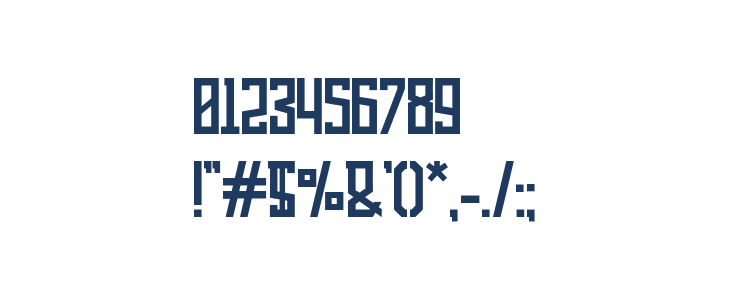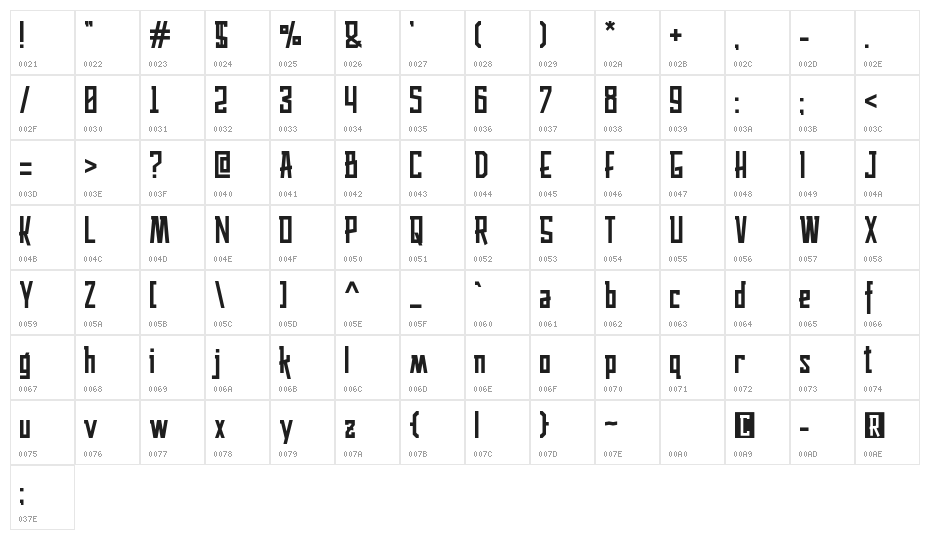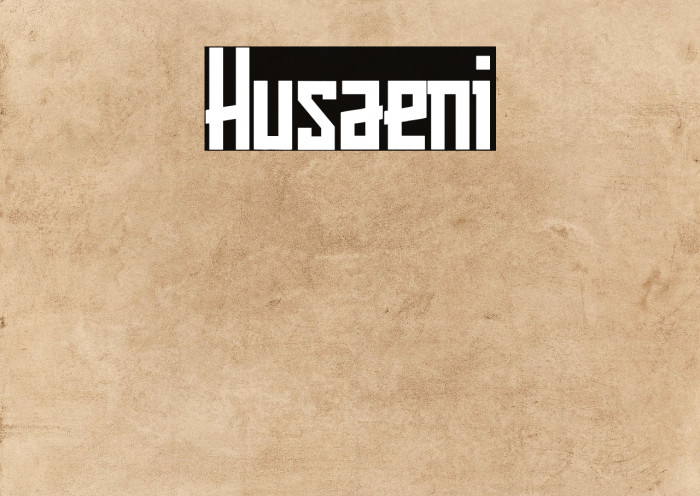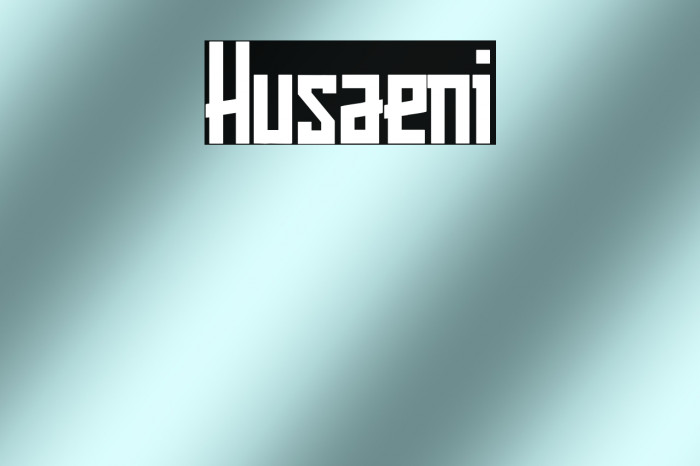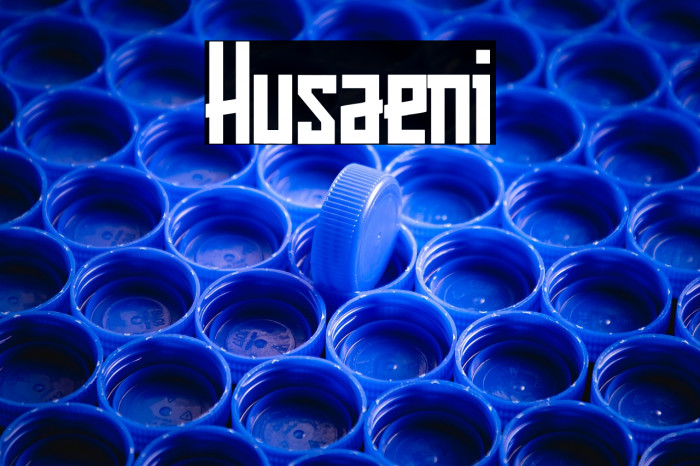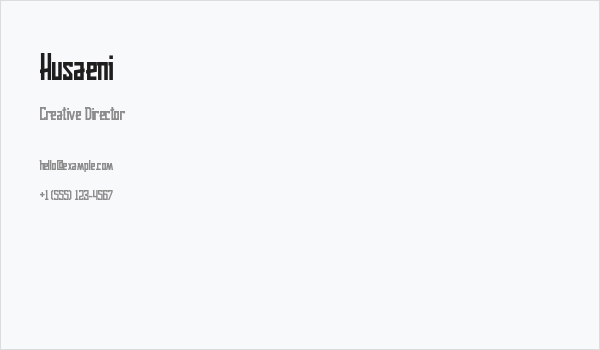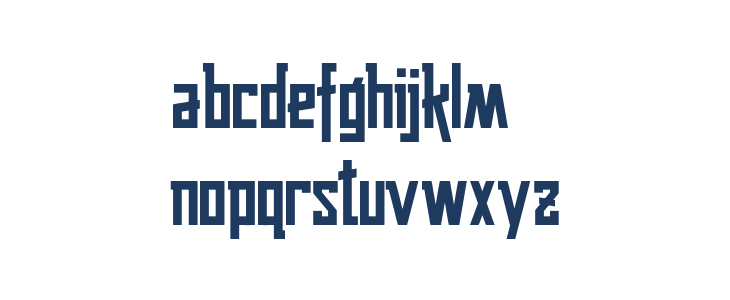
Husaeni Font
Husaeni Description
This font features a bold and angular design, characterized by its sharp edges and geometric shapes. The uppercase letters are particularly striking, with a blocky appearance that conveys strength and modernity. The lowercase letters maintain a similar style, ensuring consistency throughout the typeface. Numbers and special characters are crafted with the same attention to detail, making them highly legible and visually appealing. The overall design is reminiscent of industrial or futuristic themes, making it suitable for projects that require a strong visual impact.